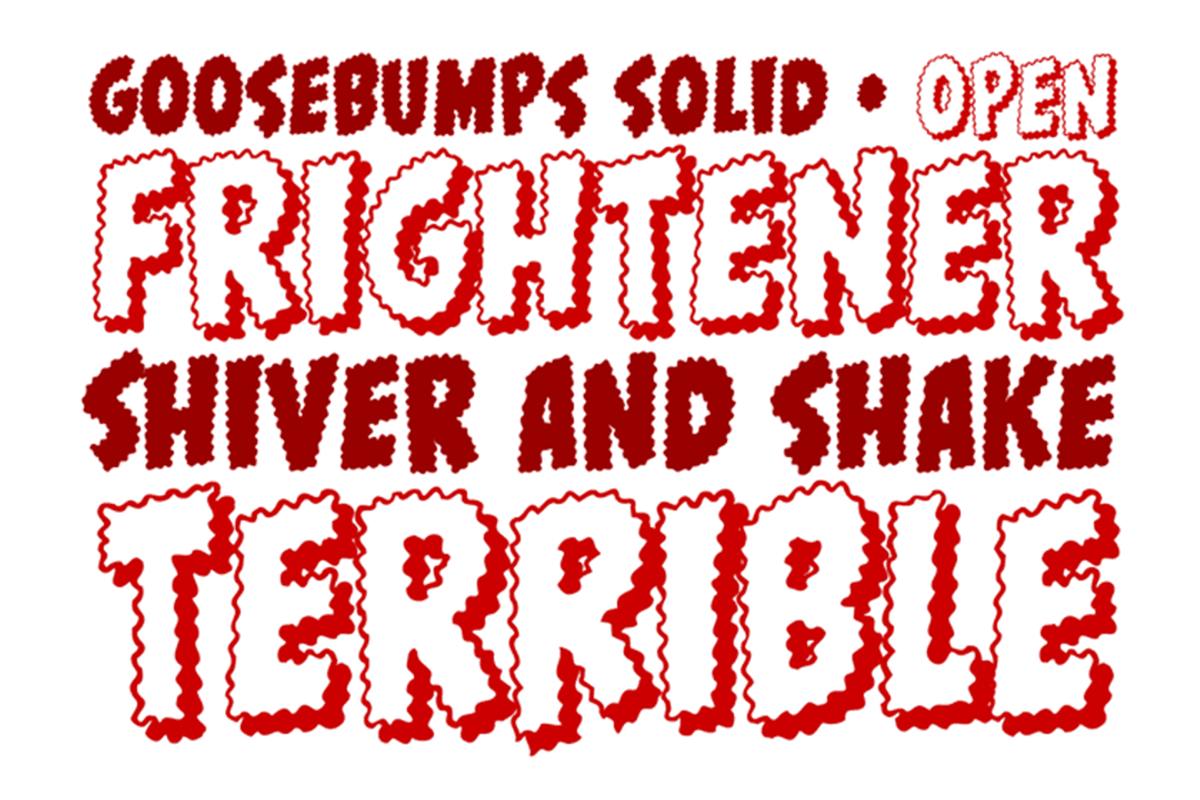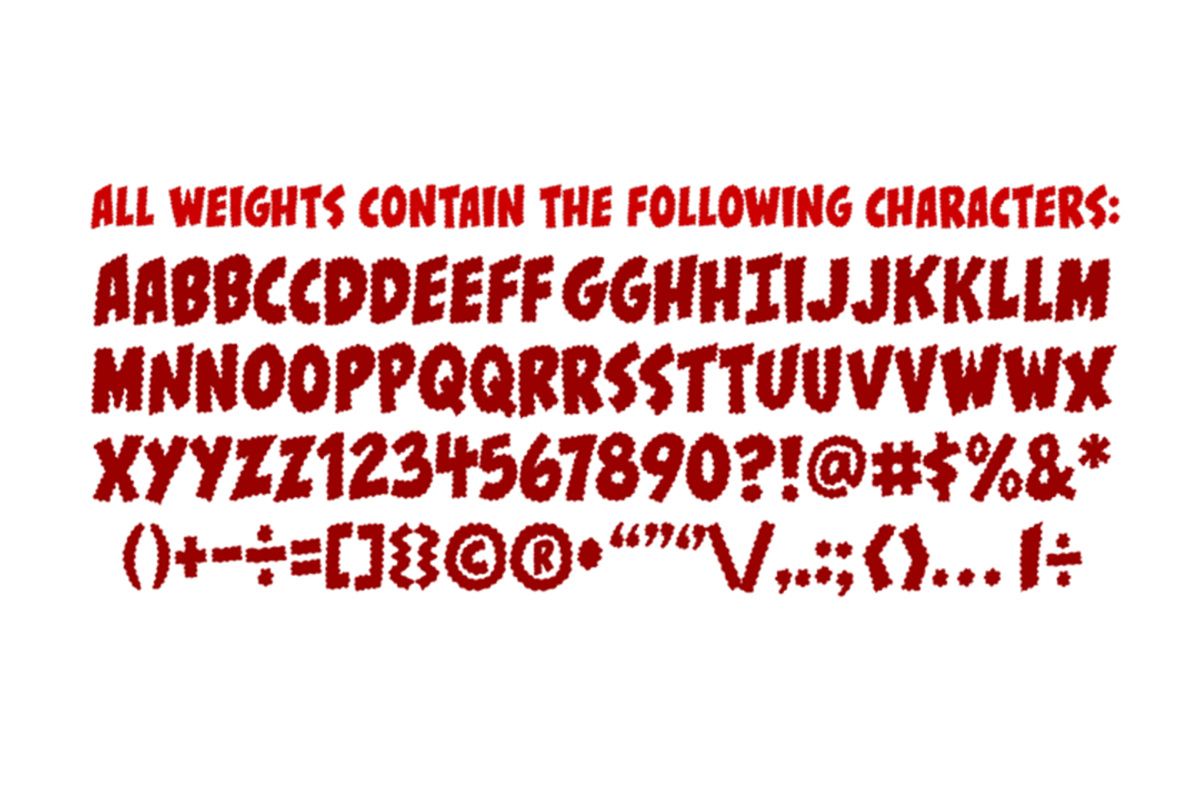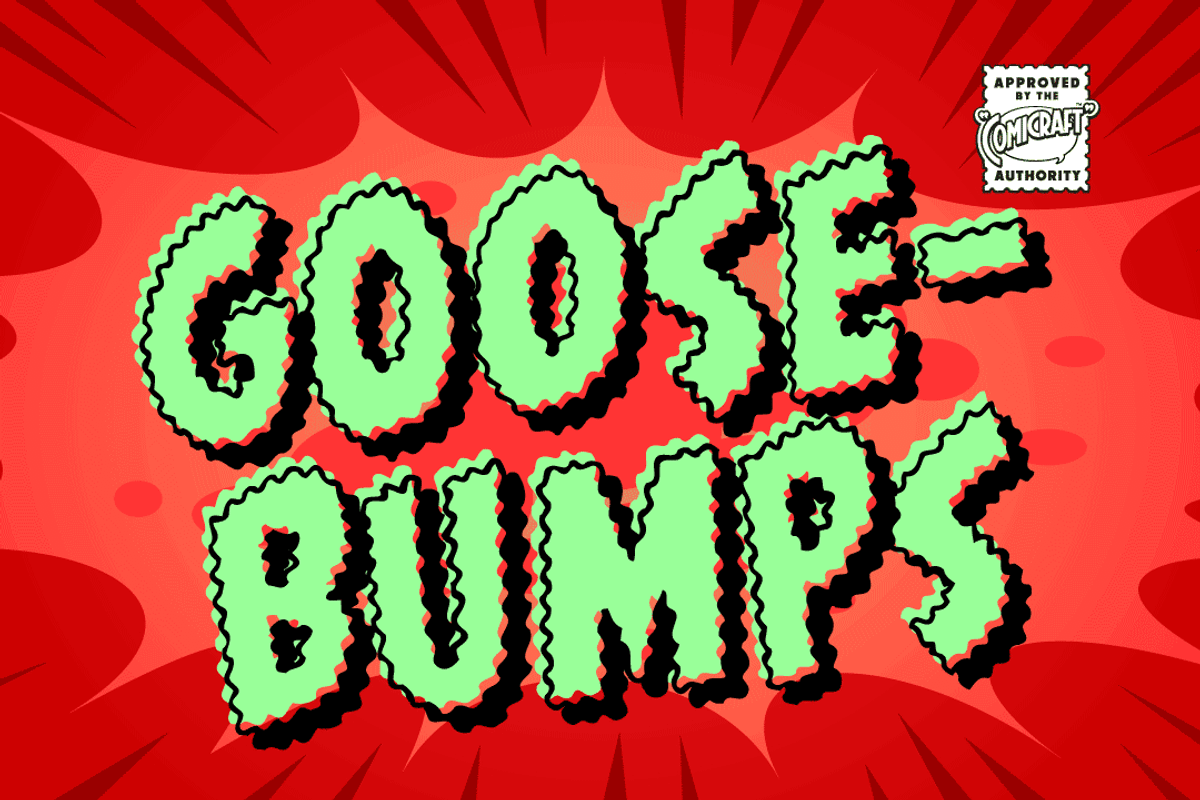
Goosebumps
Goosebumps by Comicraft Fonts is a font selected for branding, posters, packaging, typography.
- Hand lettered by rotten old Richard Starkings after we locked him up in the attic one dark, stormy night, these stressed out characters are
Goosebumps by Comicraft Fonts fits naturally into Branding, posters, packaging, typography.